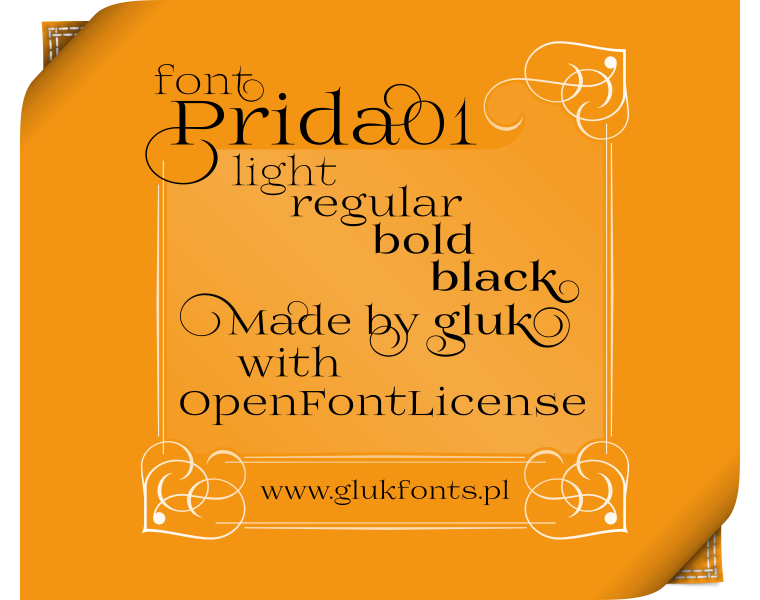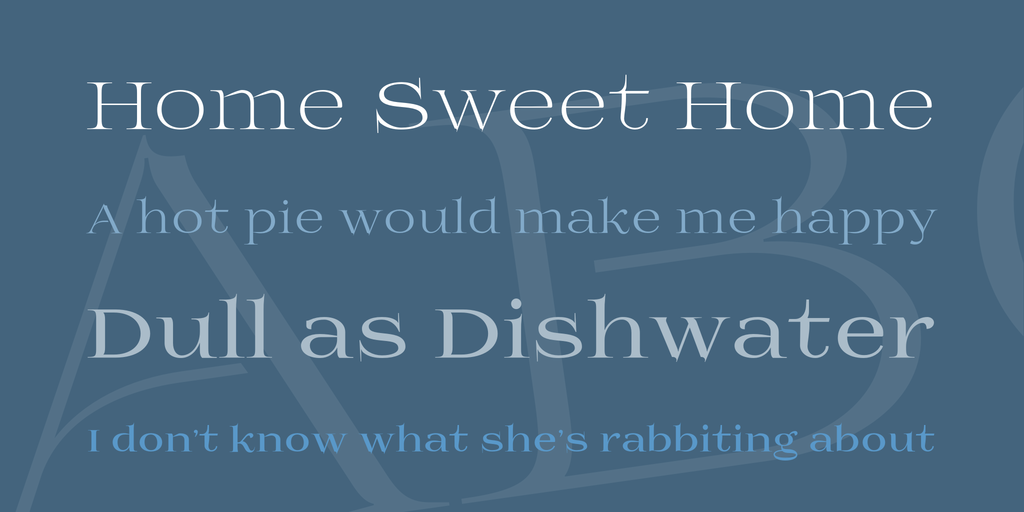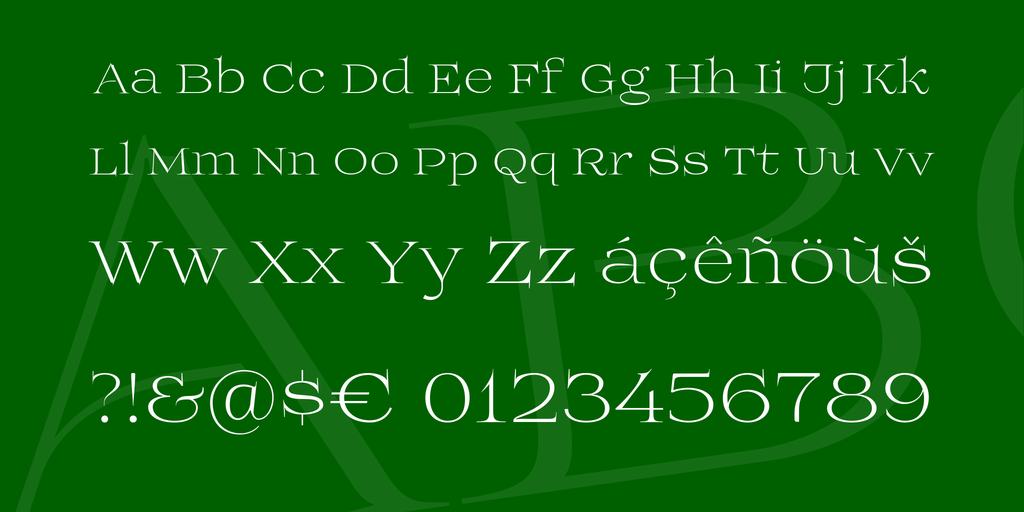
Prida01 Font Family
Dec­o­ra­tive font fam­ily Prida01: reg­u­lar, bold, black and light with 5 styl­is­tic sets, ini­tial and ter­mi­nal forms, lig­a­tures and con­tex­tual alternates.